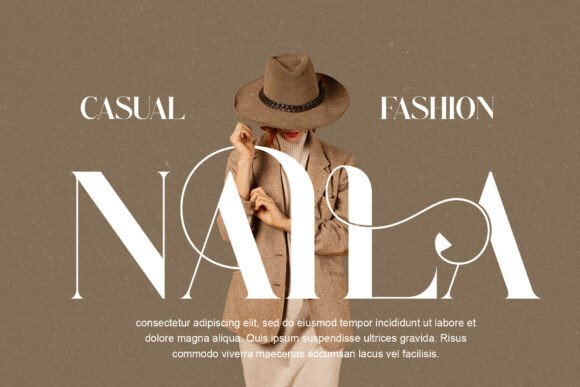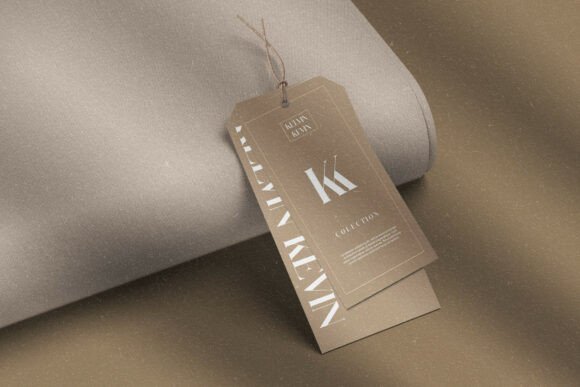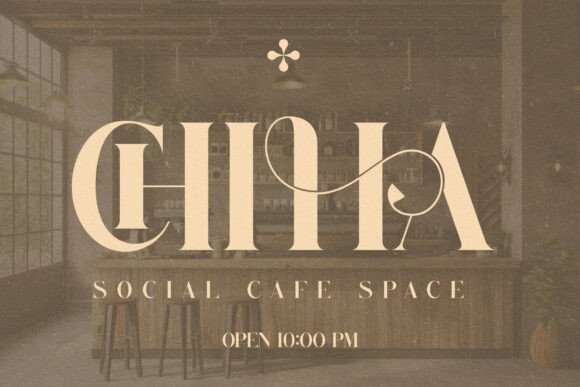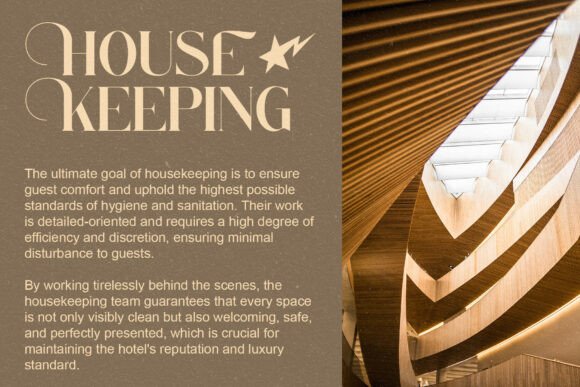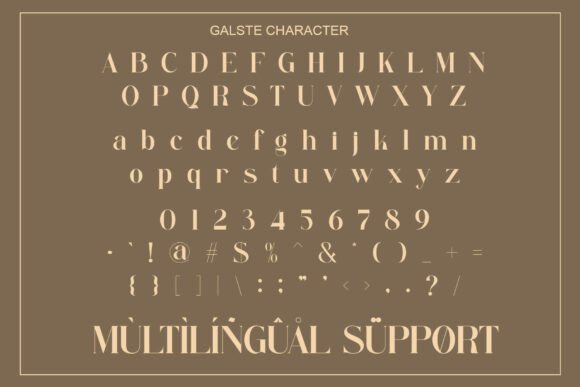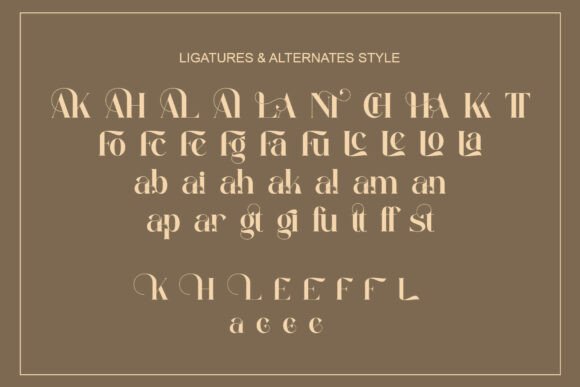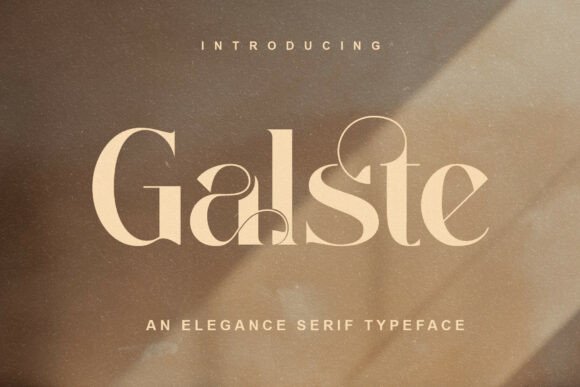
Introducing Galste Font: Elegance Meets Floral Sophistication
In the world of typography, few fonts manage to strike a balance between elegance and uniqueness. Galste Font is one such exceptional typeface that combines the sophistication of modern serif fonts with the delicate charm of floral-inspired design. This beautifully crafted font is perfect for designers and crafters looking to add a touch of luxury and femininity to their projects.
Design Characteristics of Galste Font
Galste is characterized by its graceful curves, luxurious ligatures, and bold yet delicate strokes. Each letterform is thoughtfully designed to create seamless ligatures and harmonious letter flow, making it ideal for creating standout titles, chic branding, and elegant invitations. The font’s classic serif structure provides a sense of tradition and reliability, while its floral undertones add a modern and creative twist.
Perfect for High-End Design Projects
Galste’s refined and feminine character makes it a perfect fit for high-end branding, fashion editorials, wedding stationery, beauty packaging, and upscale logos. Its sophisticated appearance can instantly elevate the aesthetic of any design project, adding a layer of style and sophistication that commands attention. Whether you’re working on romantic-themed designs, luxury product packaging, or editorial layouts, Galste is the perfect choice.
Inspiration from Timeless Allure
Galste draws inspiration from the timeless allure of blooming florals and the strength of classic typography. This unique blend of softness and confidence makes it an excellent choice for designers looking to create elegant and sophisticated designs. The font’s floral undertones evoke a sense of romance and whimsy, while its classic structure provides a sense of stability and tradition.
Technical Features of Galste Font
Galste Font is fully PUA encoded, making all characters accessible without special design software. This feature makes it easy to use for designers and crafters who may not have extensive experience with font design software. Additionally, the font includes multilingual support, ensuring that it can be used for a wide range of design projects across different languages and cultures.
Use Cases for Galste Font
Galste’s versatility makes it suitable for a variety of design projects, including:
- High-end branding: Use Galste to create sophisticated and elegant brand identities that exude luxury and refinement.
- Fashion editorials: Add a touch of glamour and sophistication to your fashion editorials with Galste’s refined and feminine character.
- Wedding stationery: Create beautiful and elegant wedding stationery, including invitations, menus, and place cards, with Galste’s floral-inspired design.
- Beauty packaging: Use Galste to create luxurious and eye-catching beauty packaging that stands out on store shelves.
- Upscale logos: Create sophisticated and elegant logos for high-end brands with Galste’s classic serif structure and floral undertones.
Galste Font is a sophisticated modern serif font that beautifully blends elegance with a floral-inspired touch. Its refined and feminine character makes it perfect for high-end design projects, including branding, fashion editorials, wedding stationery, beauty packaging, and upscale logos. With its fully PUA encoded and multilingual support features, Galste is an excellent choice for designers and crafters looking to add a touch of luxury and sophistication to their designs.